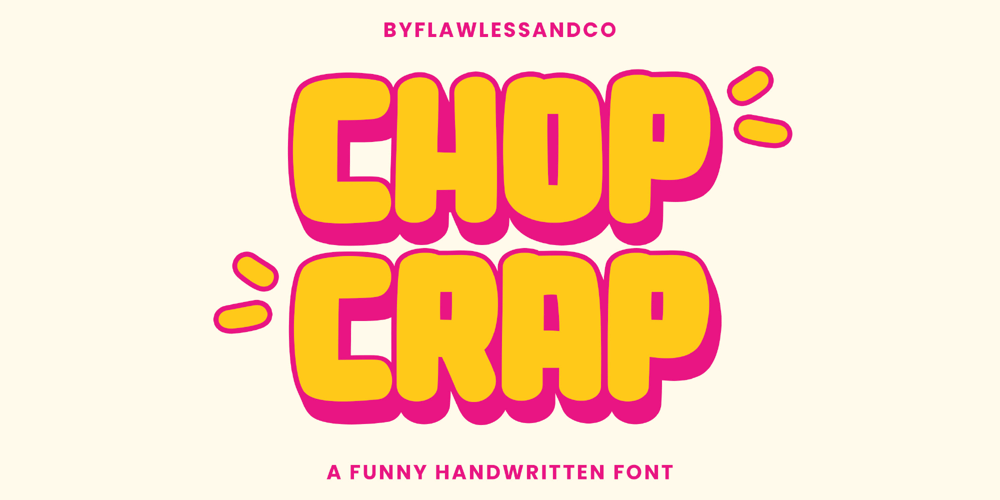
Chop Crap Font Family was designed by Achmad Yani and published by Flawlessandco. Chop Crap contains 2 styles and family package options. Introducing “Chop Crap” – a lively and humorous handwritten font that combines boldness with a playful twist. There’s some connected letters and some alternates that suitable for any graphic designs. This font support for some multilingual. Also contains uppercase A-Z and lowercase a-z, alternate character, numbers 0-9, and some punctuation.If you need help, just write me! Thanks so much for checking out my shop!